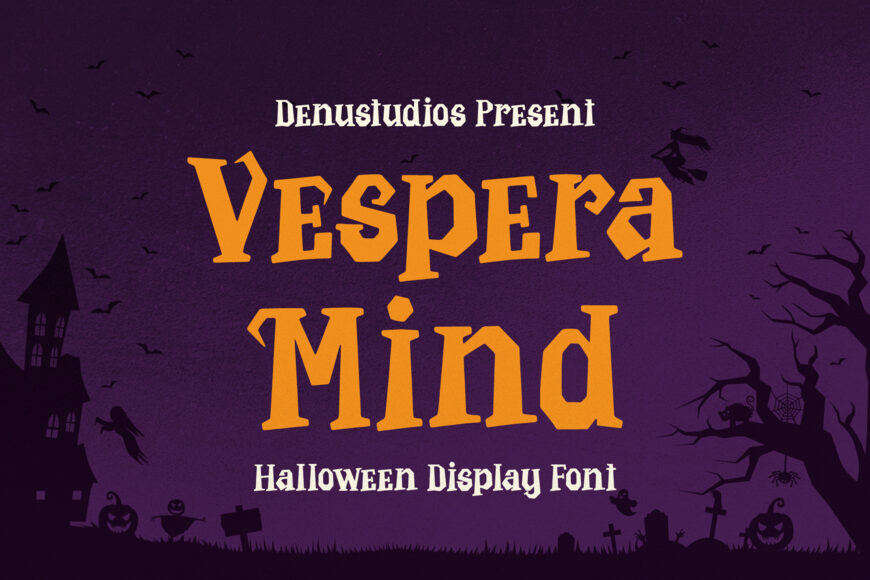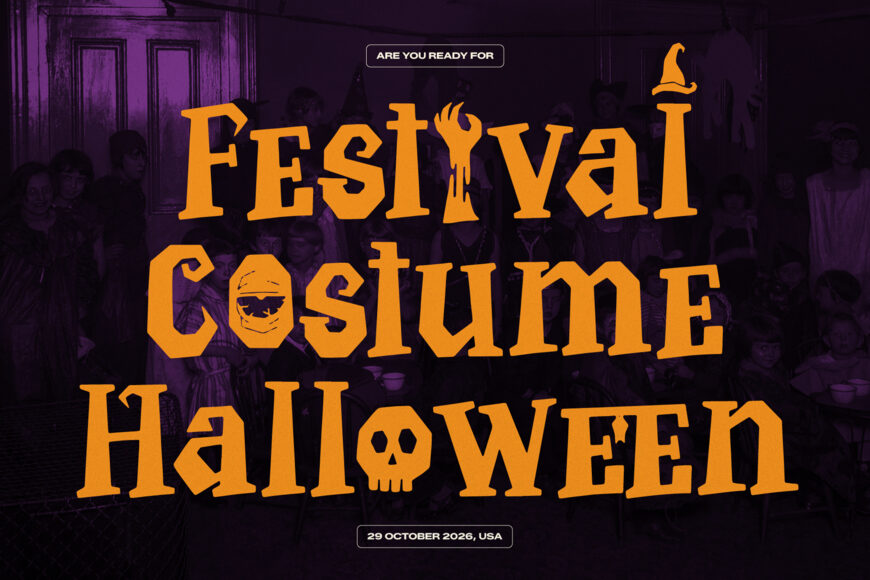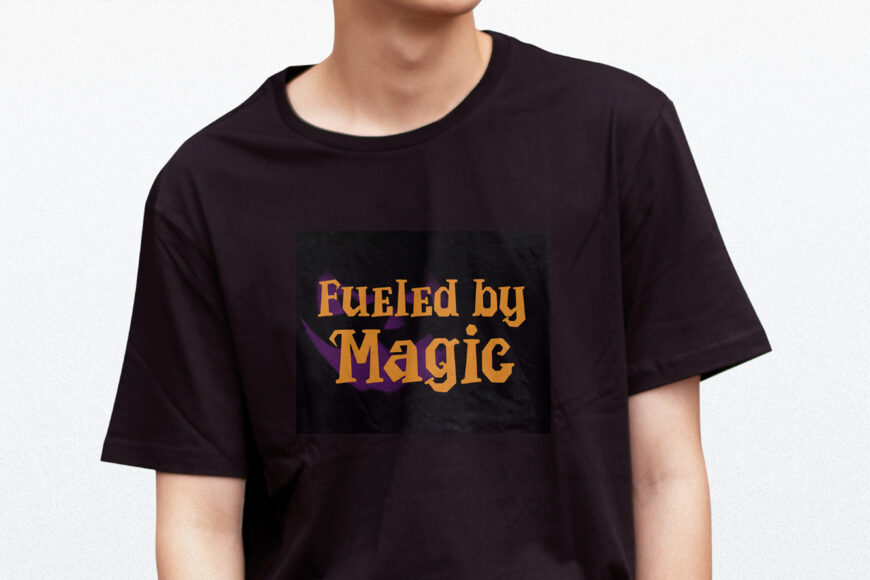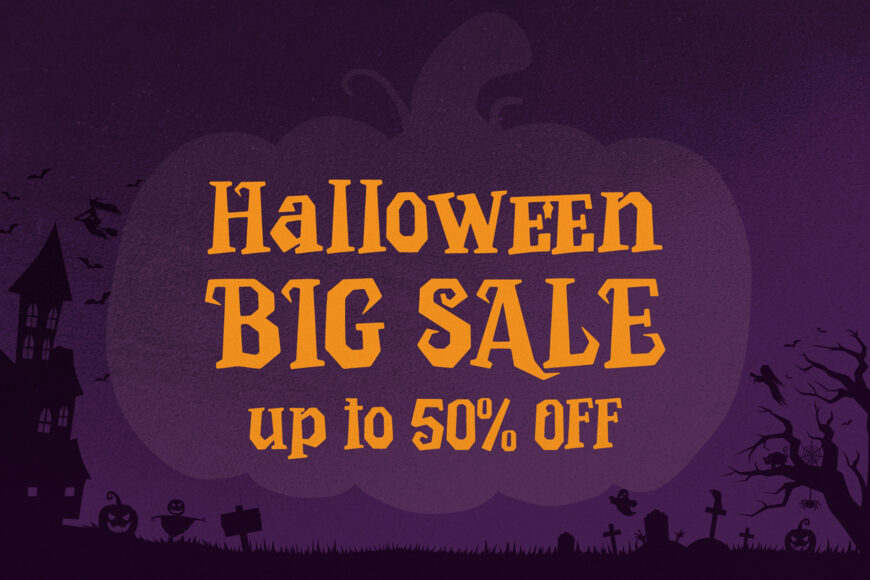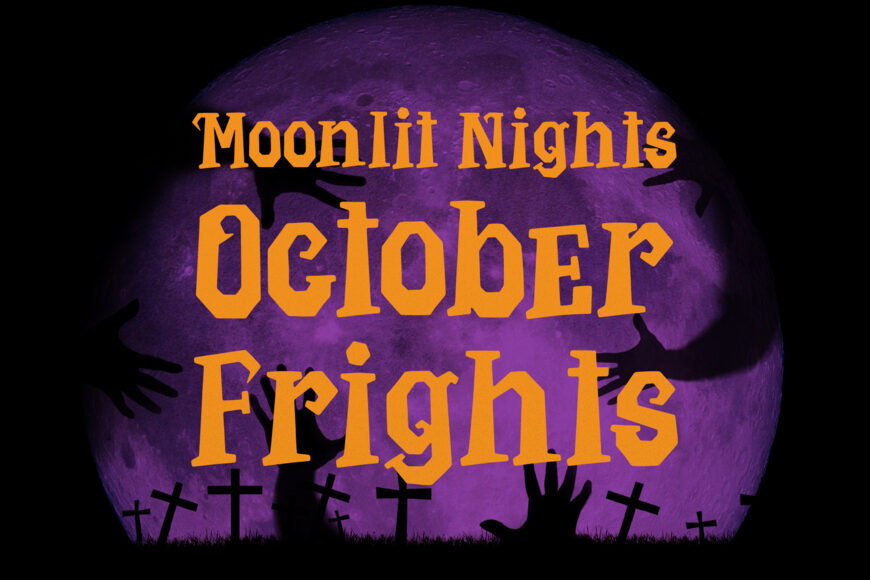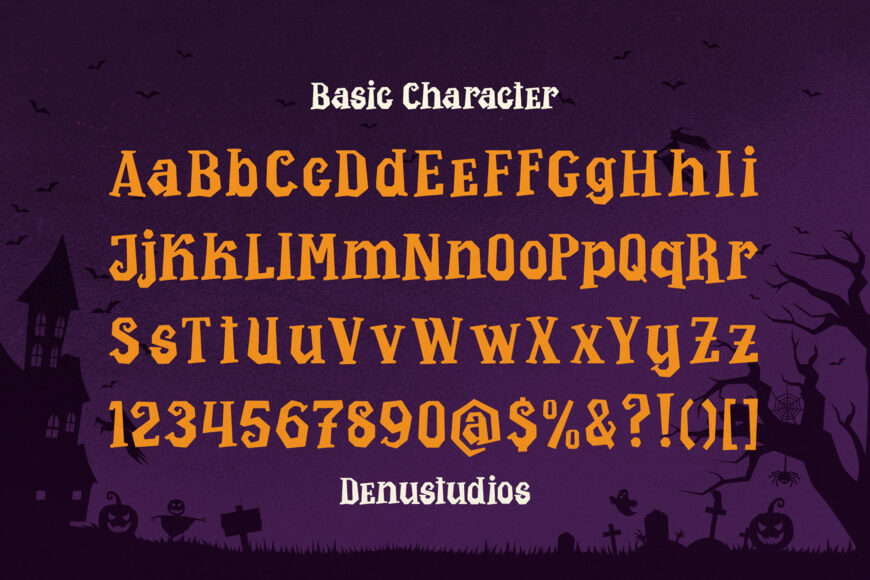
Vespera Mind is a spooky Halloween display font with a distinctive horror-inspired character. Designed for eye-catching creative projects, its quirky and mysterious style works beautifully for posters, book covers, invitations, labels, T-shirts, packaging, quotes, and seasonal designs.
Whether you’re creating a creepy Halloween theme or adding a dark fantasy touch, Vespera Mind brings an eerie personality to your typography.